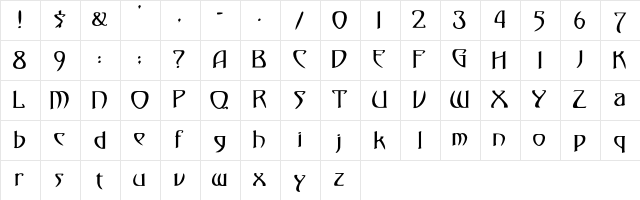
Gismonda Regular Free Font
Gismonda Regular
Design Context for Gismonda
Gismonda is a composed and adaptable typeface that performs quietly and consistently across a wide range of design contexts.